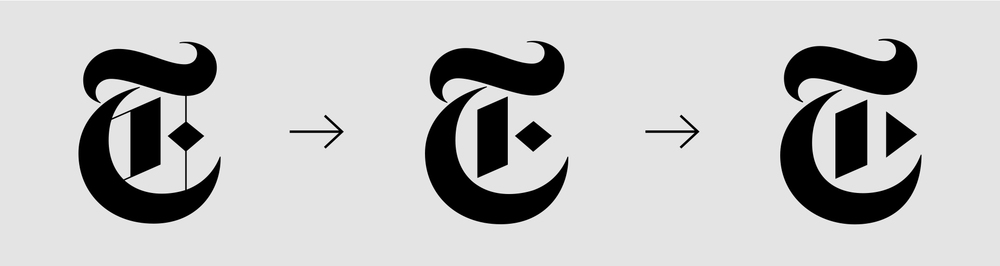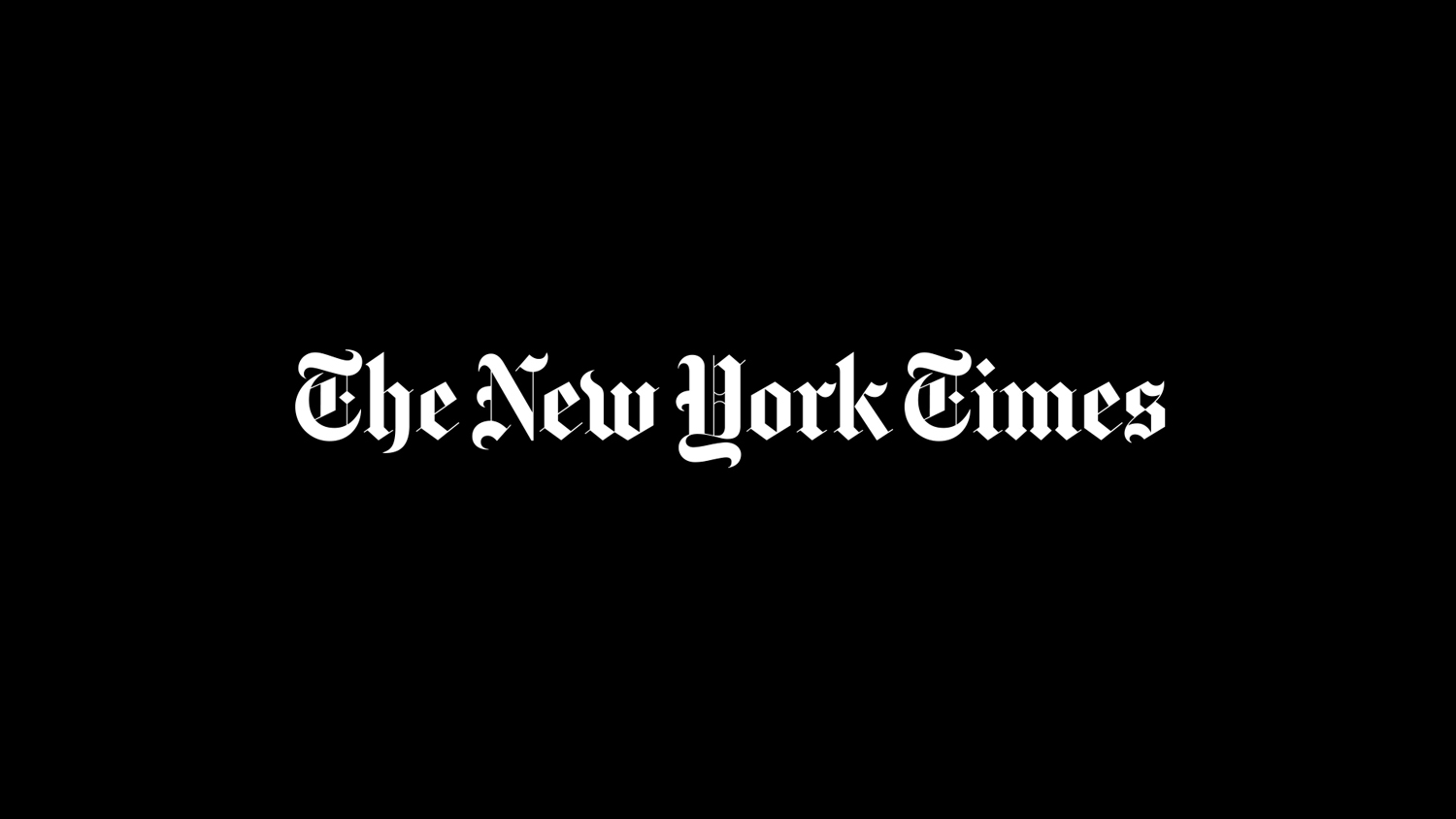
How to revamp New York Times video logo one triangle at a time
For many it’s setting the nation’s agenda, more than 100 Pulitzer Prizes adorn its prestigious history and when you have that kind of past, you are obliged to prepare your future. And that's exactly what it did. Considered as one of the top innovators within web journalism, The Times launched their website in 1996 which they redesigned big time on January 2014. Making it more contemporary after incorporating a responsive design and a much sparer look it became the start of a trend. In March 2014 NYT decided to expand their dominance on video-journalism as well and they did it one logo at a time. Particularly known for its innovations in multimedia and interactive data NYT is an absolute early leader in online video and on Monday morning April 28th, 2014 these words were heard at an art and event space in Chelsea called Dia 545, where NYT Video decided to emphasize the value of its brand in a bid to attract advertisers to invest in video.
Keira Alexandra and Kiffer Keegan combined two familiar visuals in a playful yet effective way that would adapt easily to the future needs of an ever developing brand
“You are going to hear in the next couple of weeks a lot of presentations and you are going to hear the phrase ‘we’re capturing the conversation.' Websites love to tell you how they are capturing the conversation. And maybe they are but a lot of what those other sites are talking about, they are talking about us. They may be capturing the conversation, but we are starting it” said Bruce Headlam, managing editor of video since last fall and his words should be taken for granted.
New and improved video offerings, including more original content across 14 dedicated channels, redesigned navigation for improved discoverability of The Times’s world-class video content, a distribution partnership with Vimeo and a section of branded video content –like the first series, co-developed by The Times, Vimeo and web documentarians the Perennial Plate, which takes viewers through the evolution of food and culture in immigrant society in America- are at stake. So it is no surprise that this massive rebranding needed a redesign to it’s logo.
Smart and refreshing “the branding had to be ‘Timesian’ and also honor the variety of content we cover from clever, smart to clever, fun. And we needed a system that was quick and easy for our team to execute”
Created by New York'sWork-Order, the logo which features the “T” mark of the Times, gets a small tweak in the form of a play button that now appears instead of the diamond shape to the right. With some help from Matthew Carter to “make it perfect,” Keira Alexandra and Kiffer Keegan combined two familiar visuals in a playful yet effective way that would adapt easily to the future needs of an ever developing brand. According to its creators who provided a statement to Under Consideration, "the animation and sound together represent two parts -the gravitas (large, warm, reassuring heritage) of the Gothic “T” shape and the expediency (small, quick, sharp, nimbleness) of the play button. It is the harmonic blending of old and new media”. Smart and refreshing “the branding had to be ‘Timesian’ and also honor the variety of content we cover from clever, smart to clever, fun. And we needed a system that was quick and easy for our team to execute” said Rebecca Howard, General Marager of NYT Video while the New York duo stayed true to its mission. To create a cohesive, hierarchical system for video and to differentiate videos by tone, type and length through typography and other means.
So next time you see the T Magazine Logo pulling its colors directly from the footage taking on the palette of the story, the moment you see the refreshed animation and sound, with the “play” button flashing at the end of each digital story remember this: the easiest way to get people excited about a project is to demonstrate the extraordinary level of work in the most elegant way possible. A principle Work-Order followed excellently.